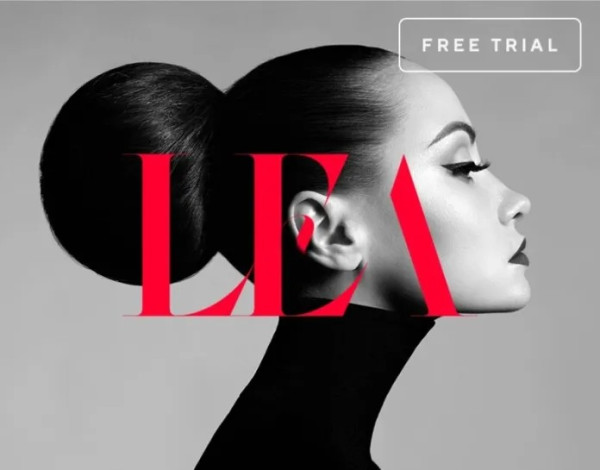
Lea Font
Lea Font is a stylish serif font characterized by contrast between thick and thin lines. It’s an experimental didone using really thin strokes which can be used for various kind Of projects, for both personal and commercial ones. You can use it as a playground for your branding & identity projects, poster designs or even movie titles.